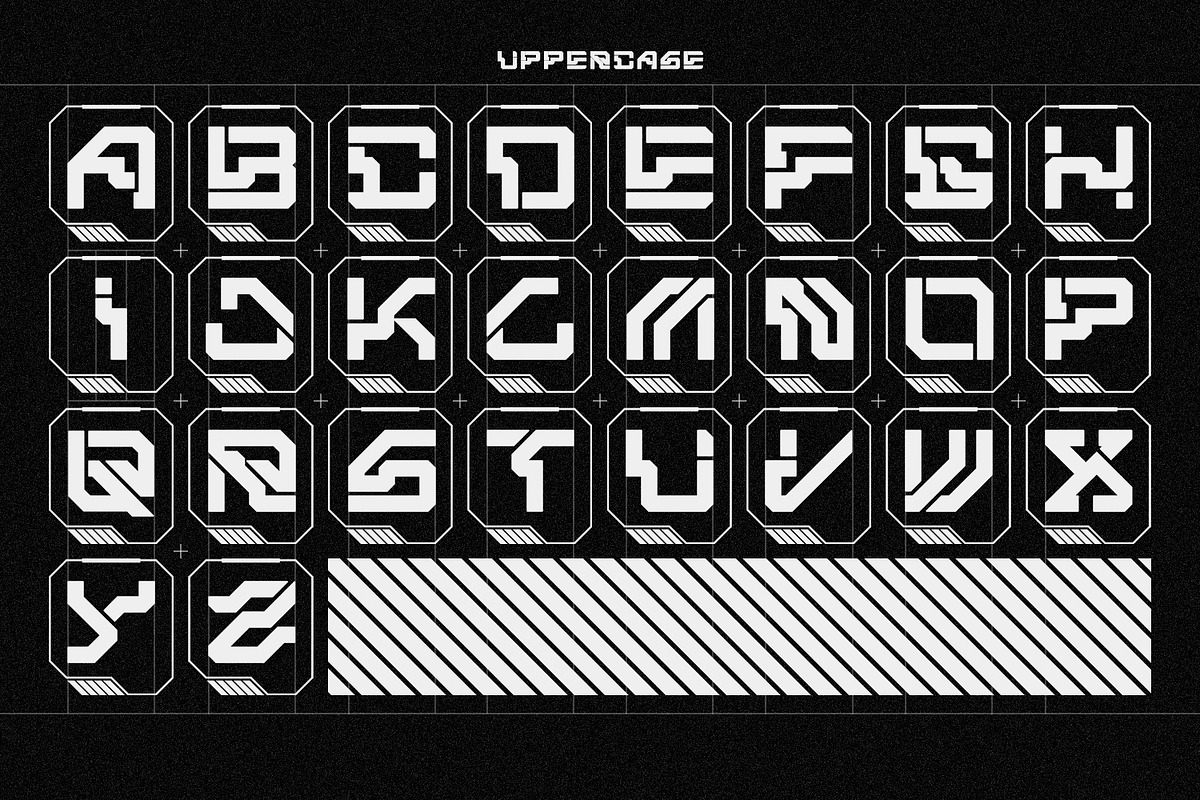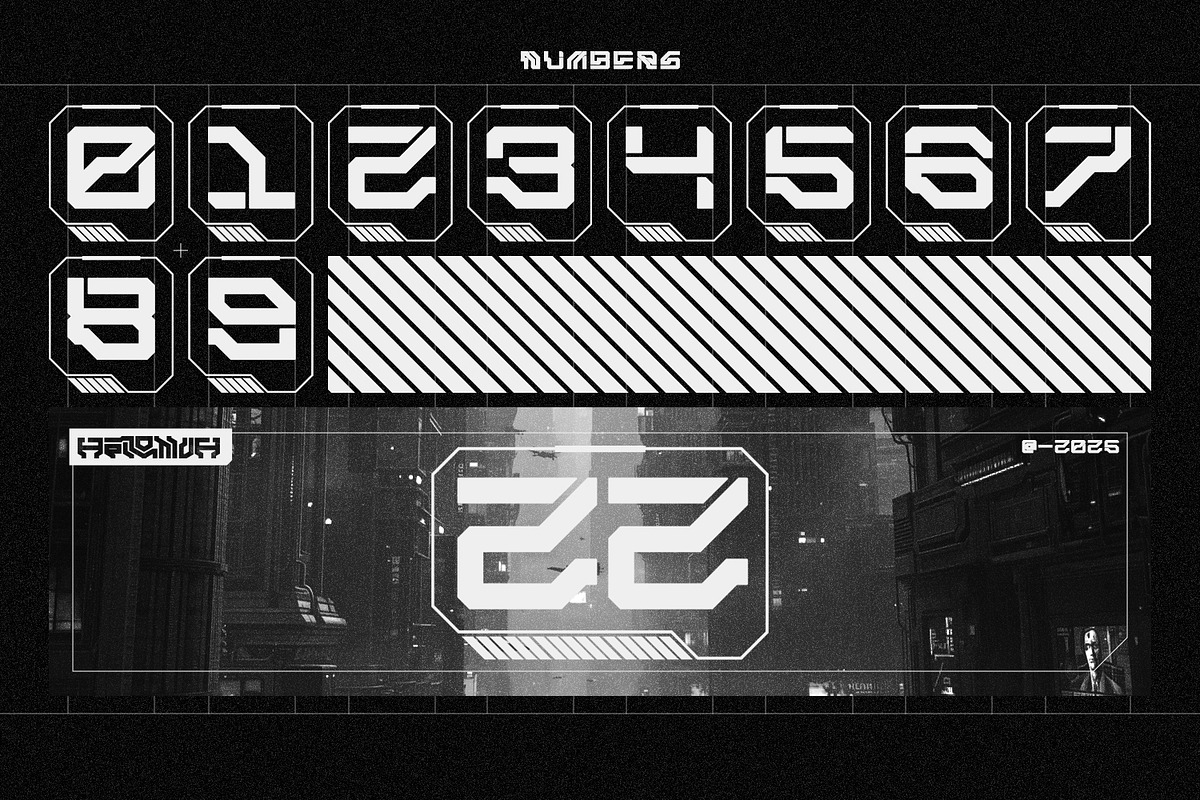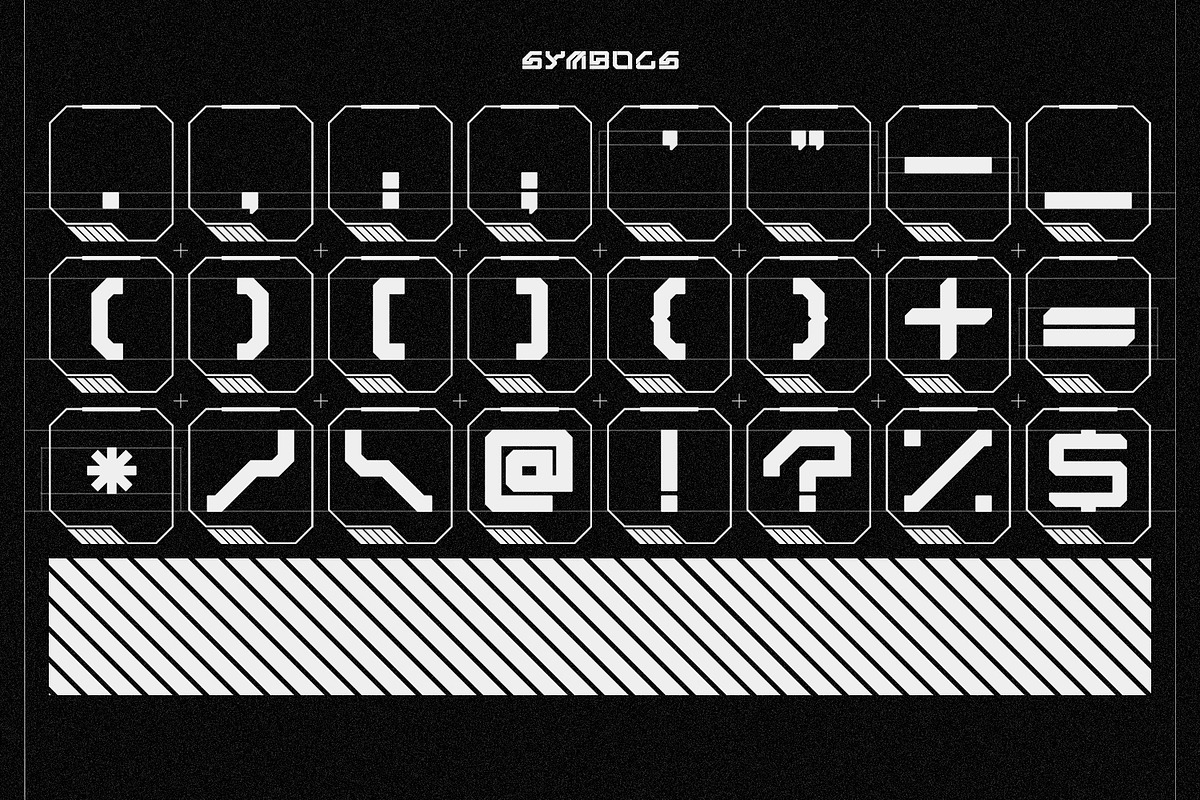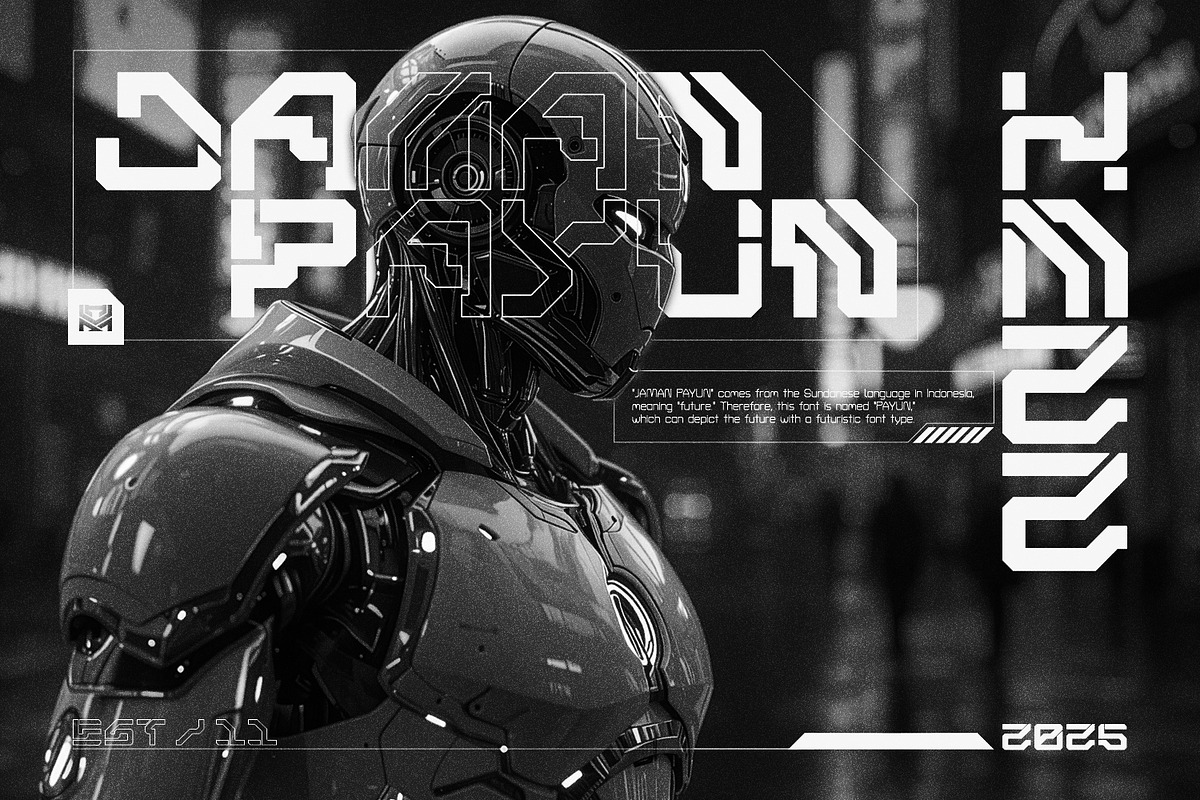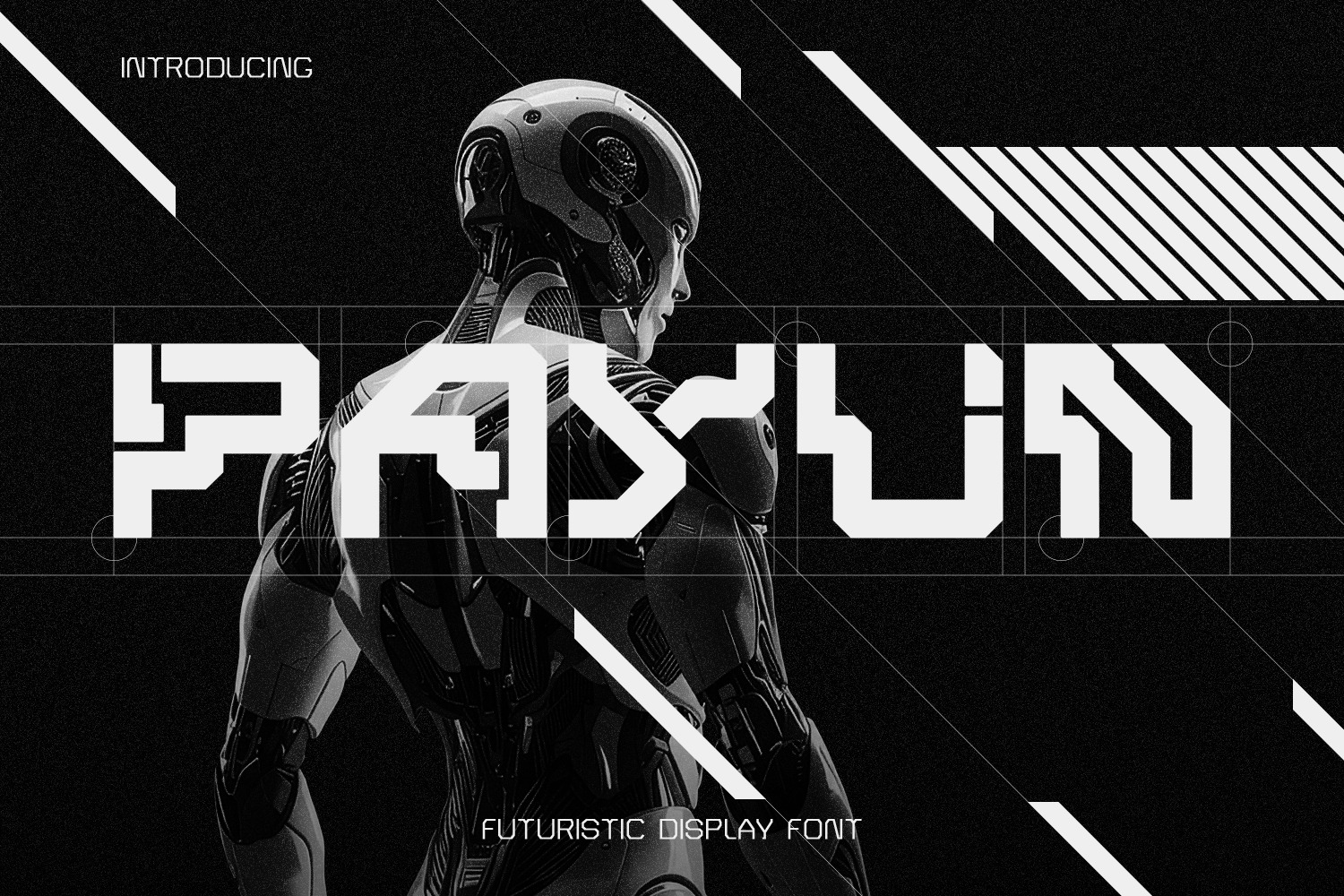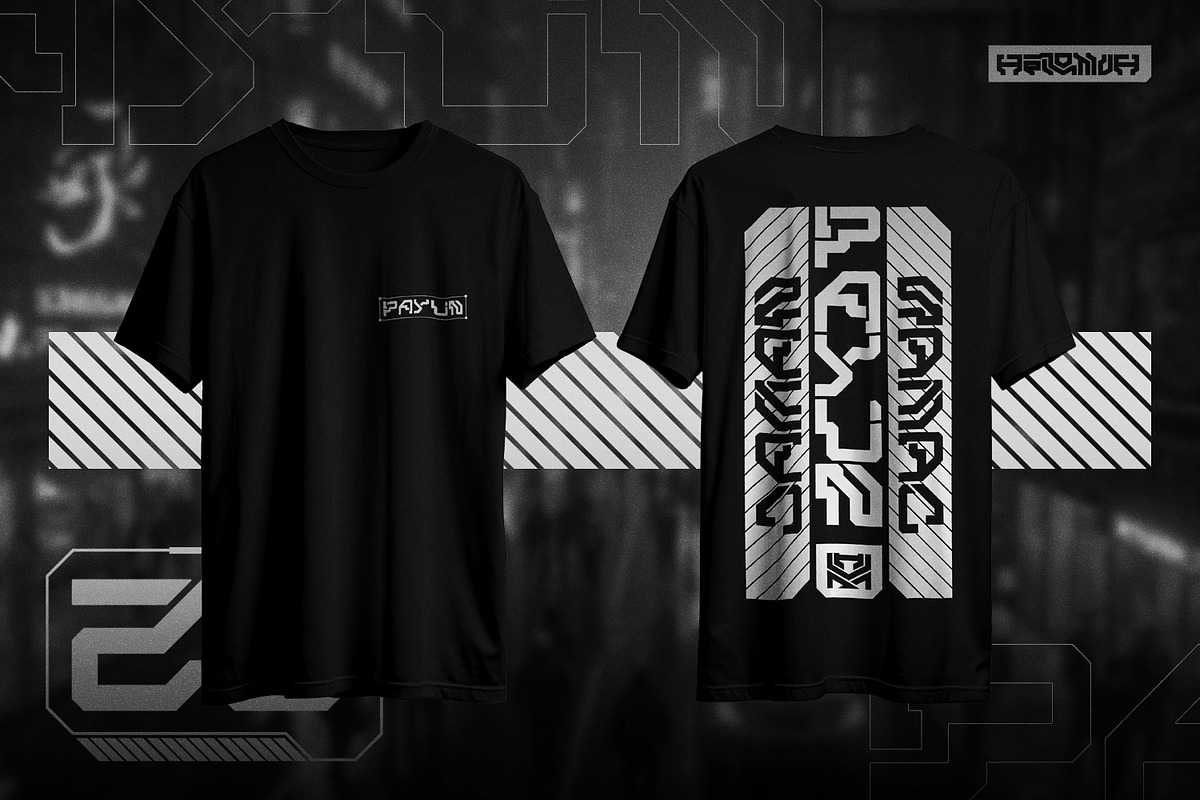
PAYUN - Futuristic Display Font
“PAYUN”, a futuristic display font designed with a bold, geometric, and high-tech aesthetic. Its sharp edges and mechanical structure evoke a strong sense of cyberpunk, sci-fi, and digital innovation.
With its monochrome black-and-white palette and technical grid background, PAYUN delivers a powerful, modern, and visionary look ideal for any project aiming to express advanced technology and the future of design.